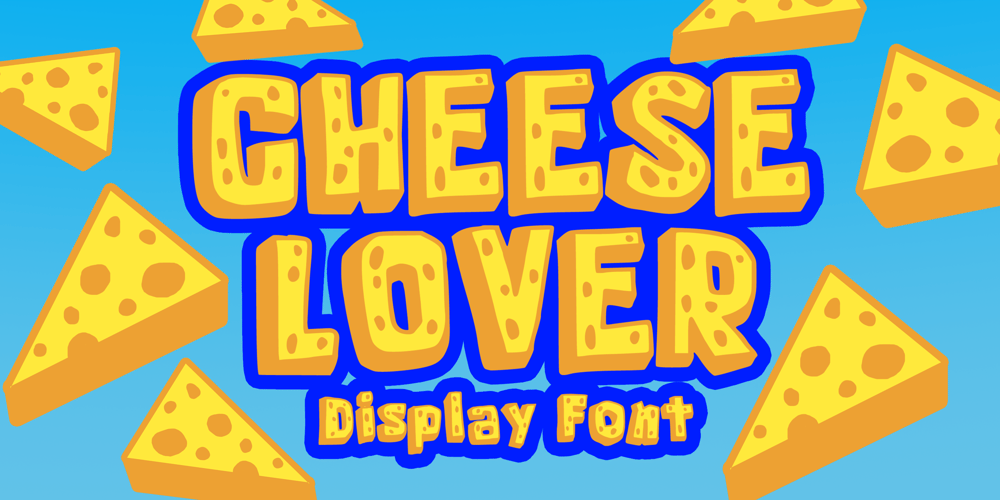
Cheese Lover Font Family was designed by Gabriel Valentinus and published by Mvmet. Cheese Lover contains 1 styles and family package options. Cheese Lover is a fun and playful cheese themed font. You can use it for anything ranging from t-shirts, book designs, packaging, food menu and greeting cards to stickers and posters, or anything that needs a casual touch, it will be your perfect font to pick. Fall in love with its incredibly versatile style, and use it to create lovely designs!